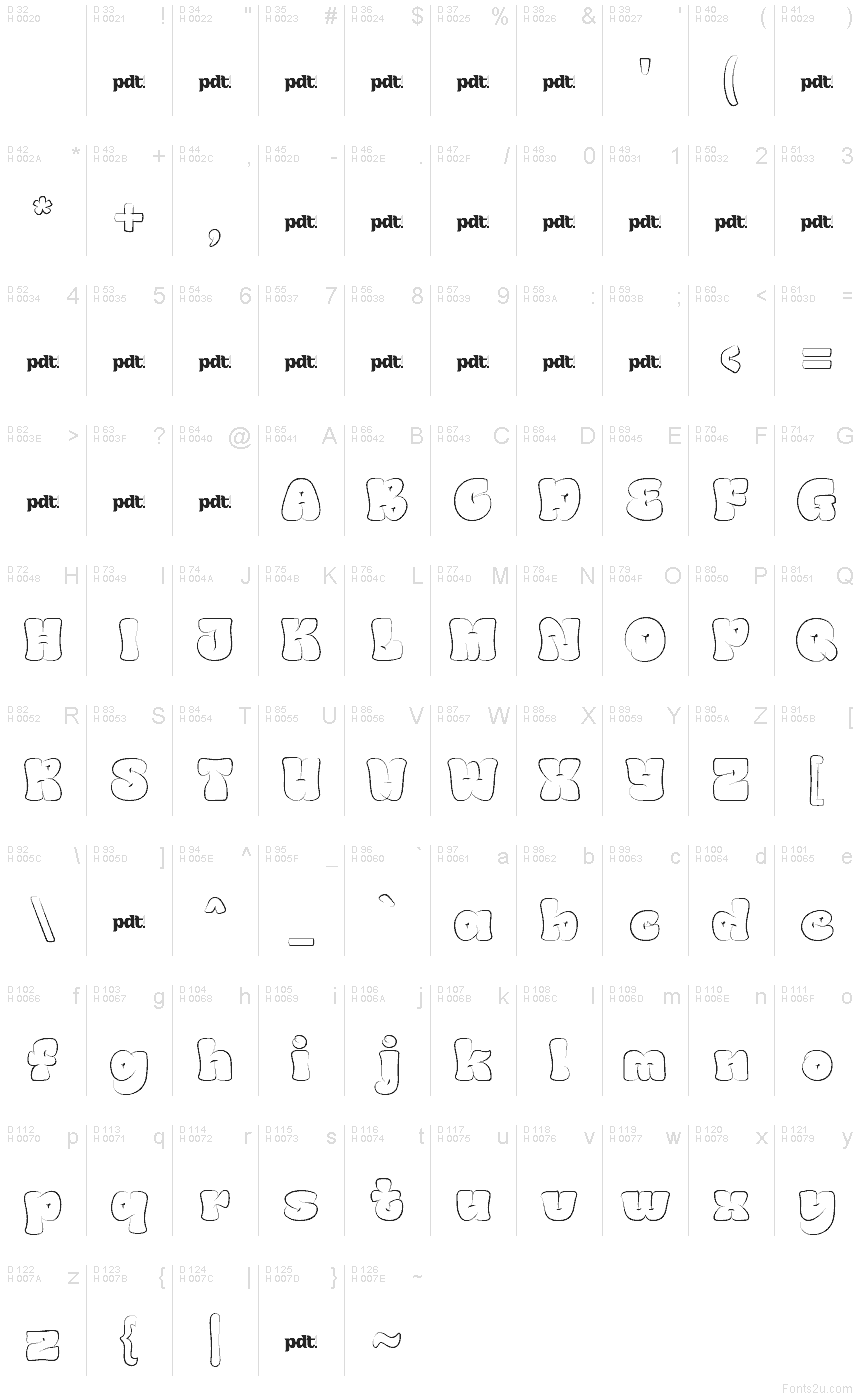
BRONG GEDUNYtrial Outline
Brong Gedun Outline font by productype.com is a rounded, graffiti-style typeface with a bold, playful look. Cartoonish and lighthearted, it carries a retro feel with its thick, bubbly design. This free calligraphy font offers characters that hold on to the true essence of professional typography.